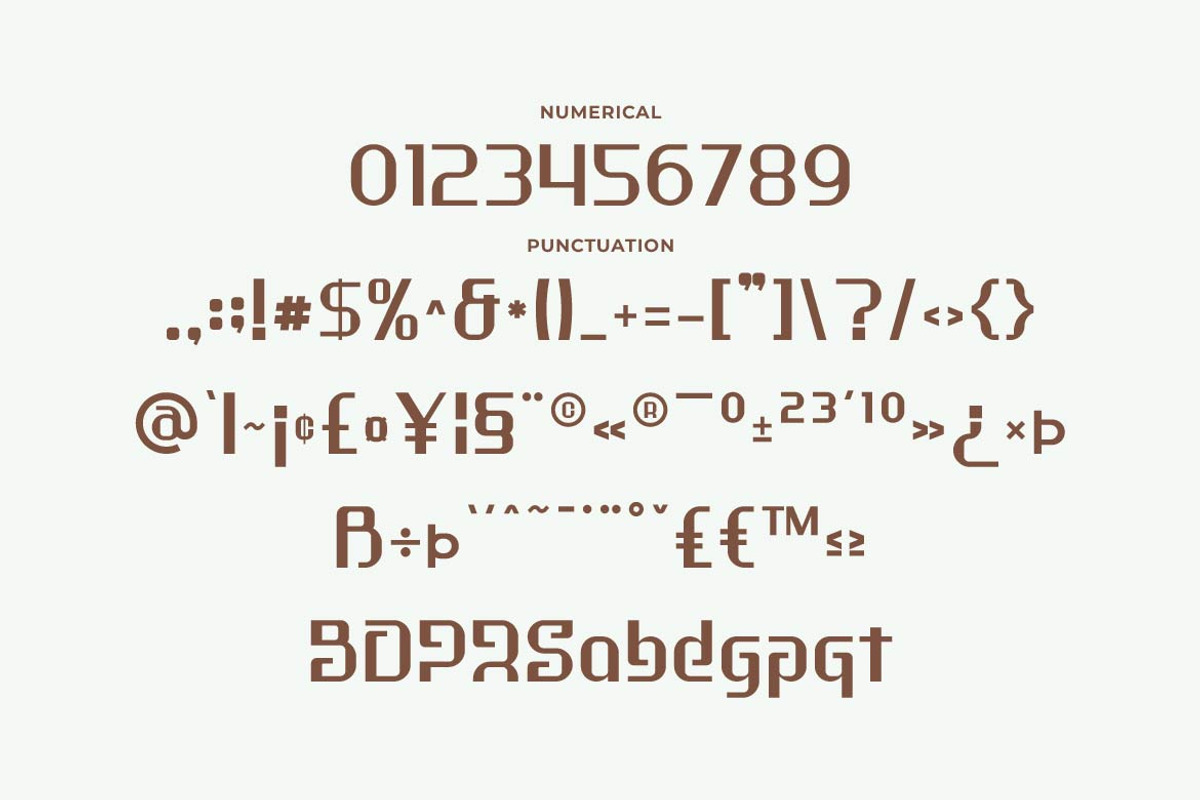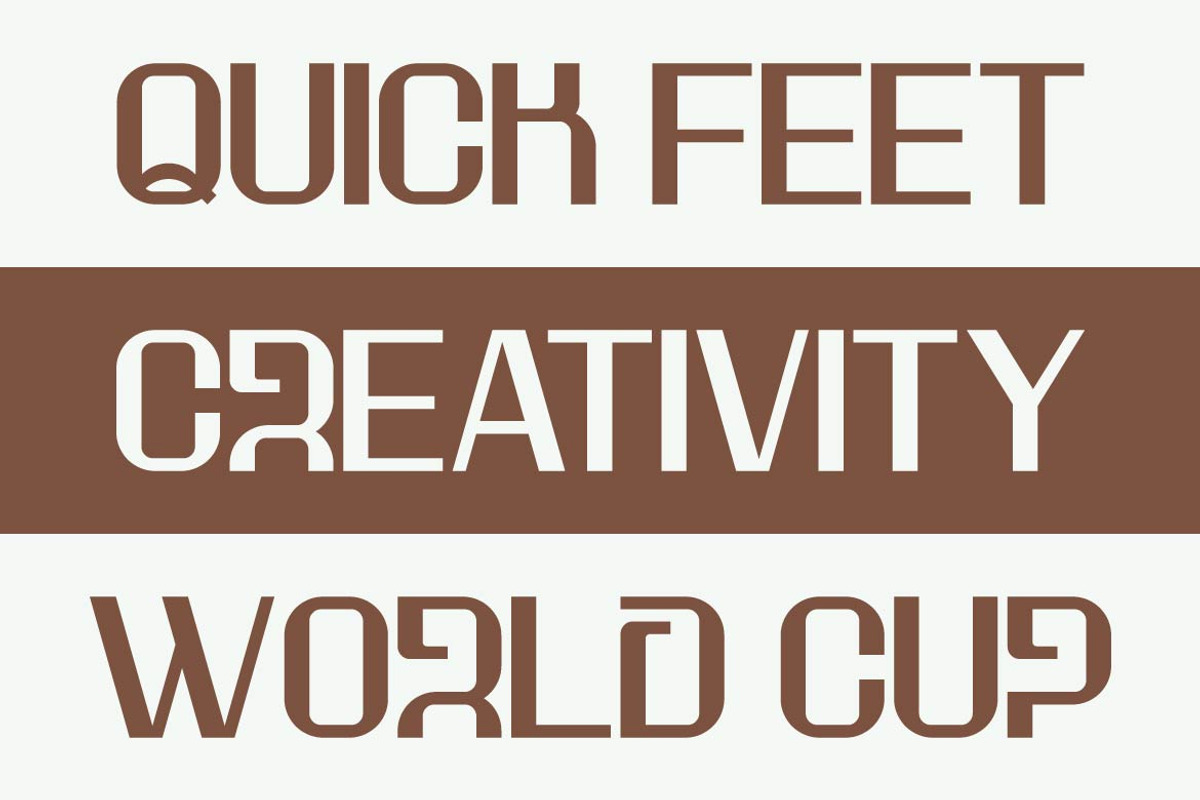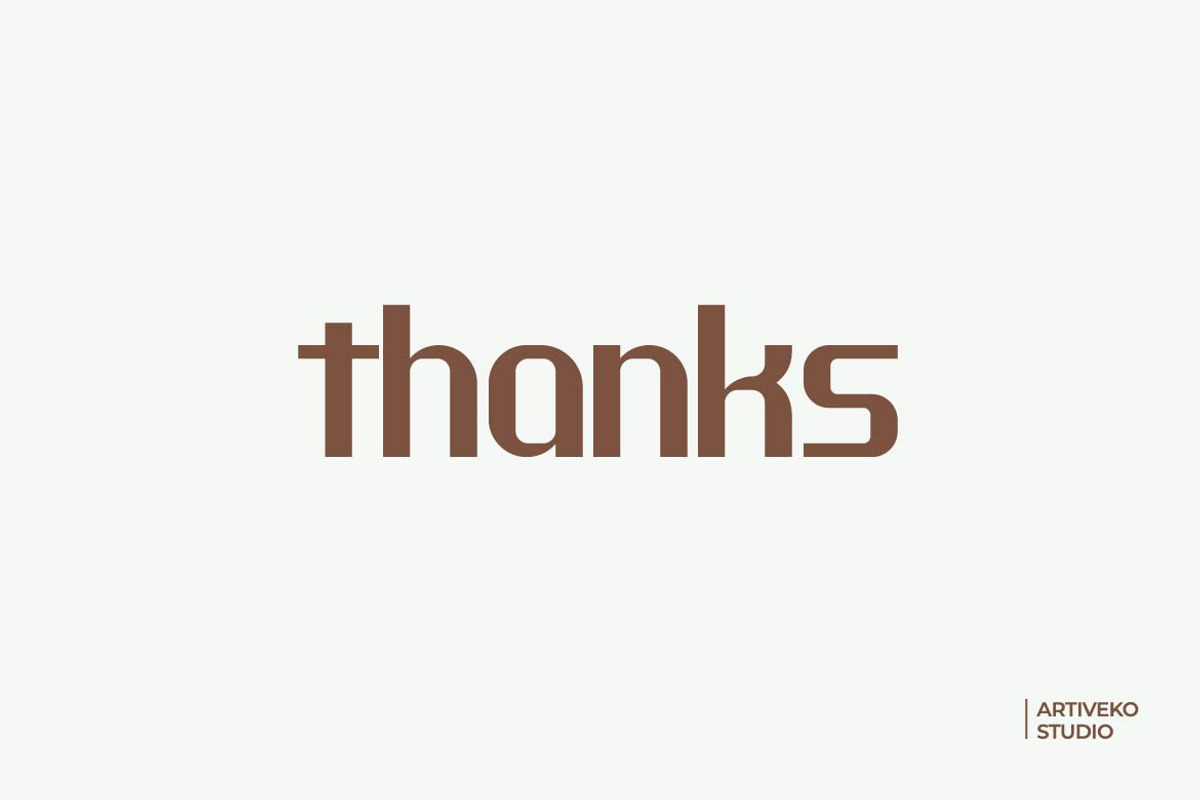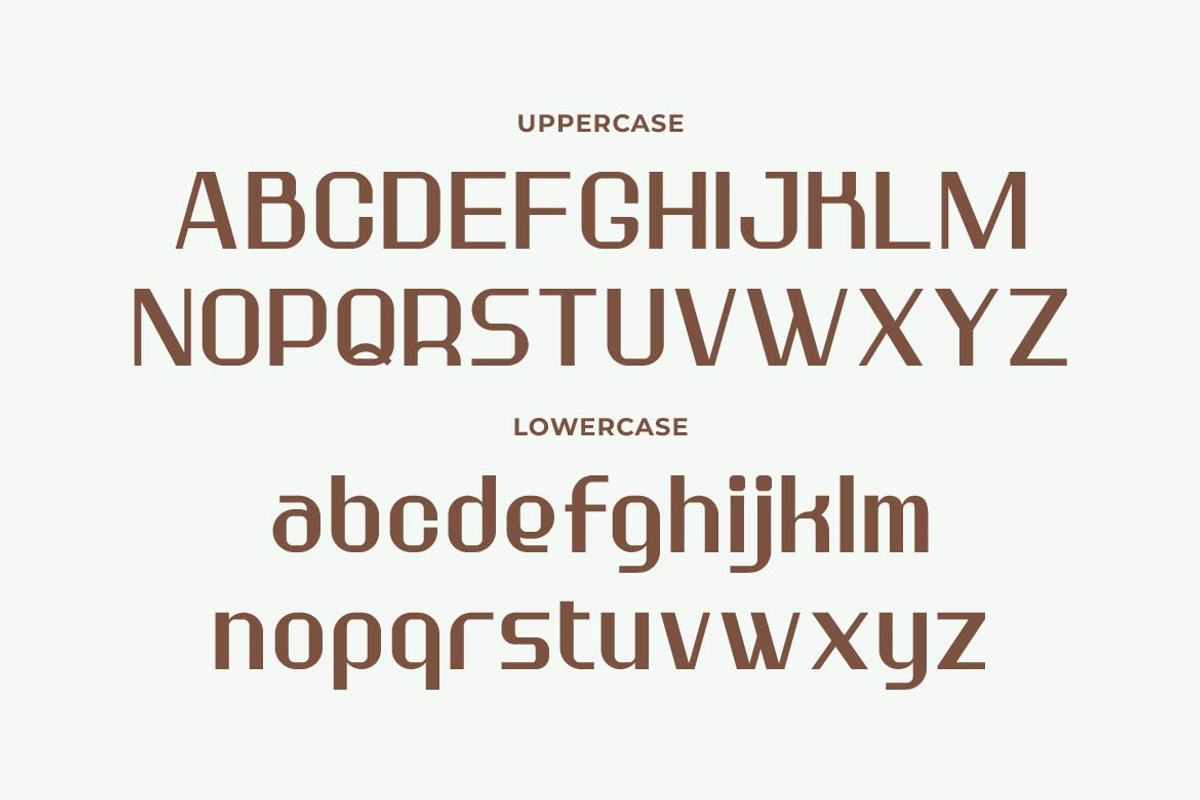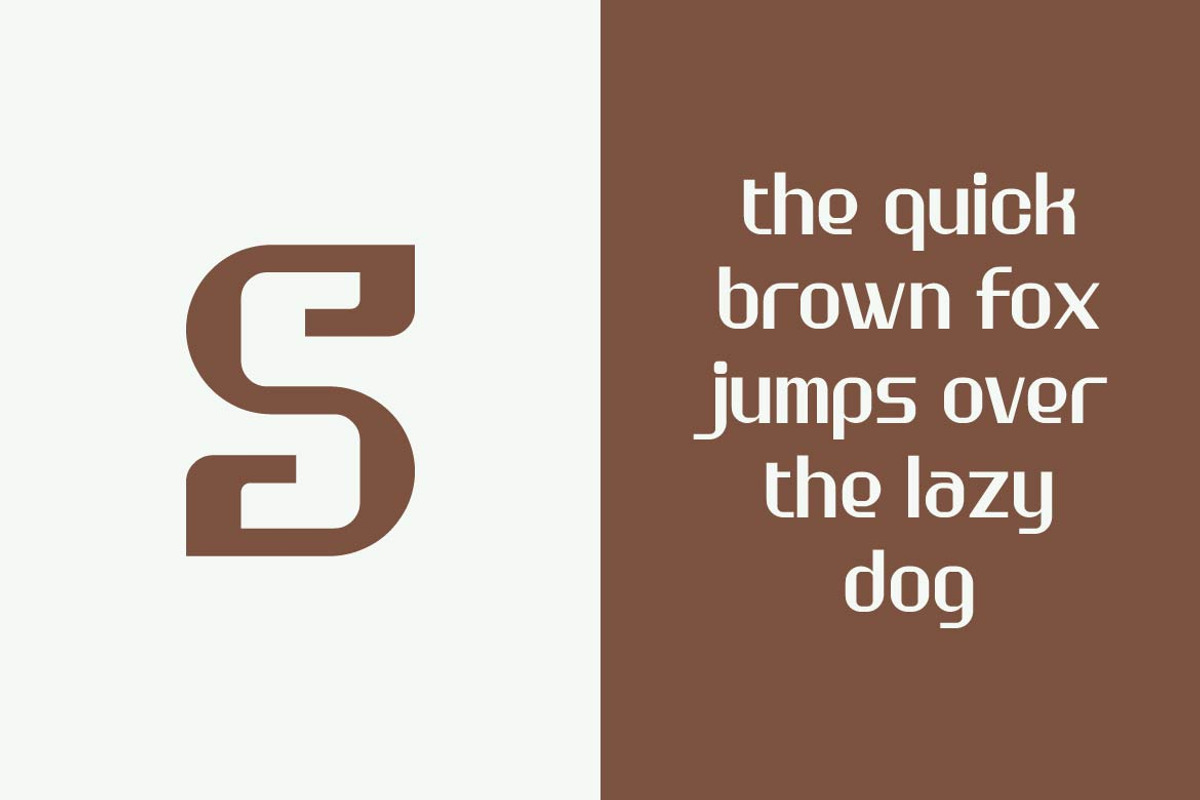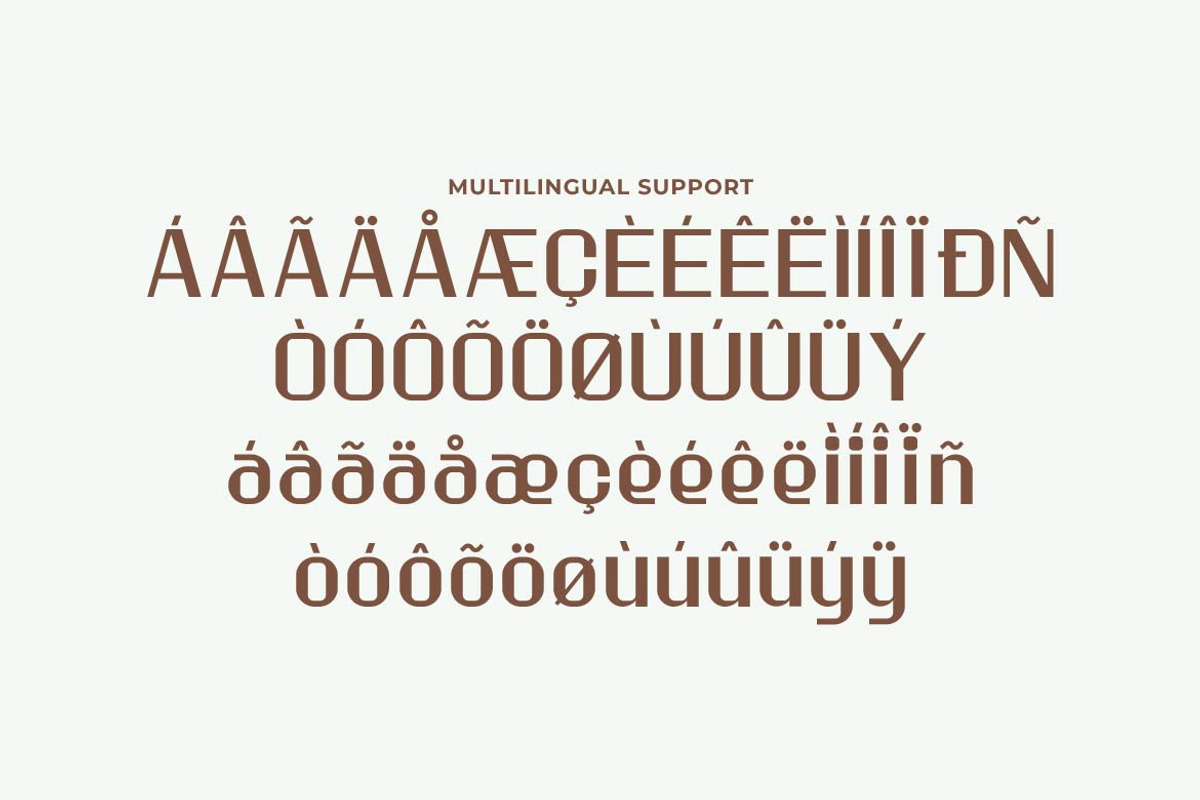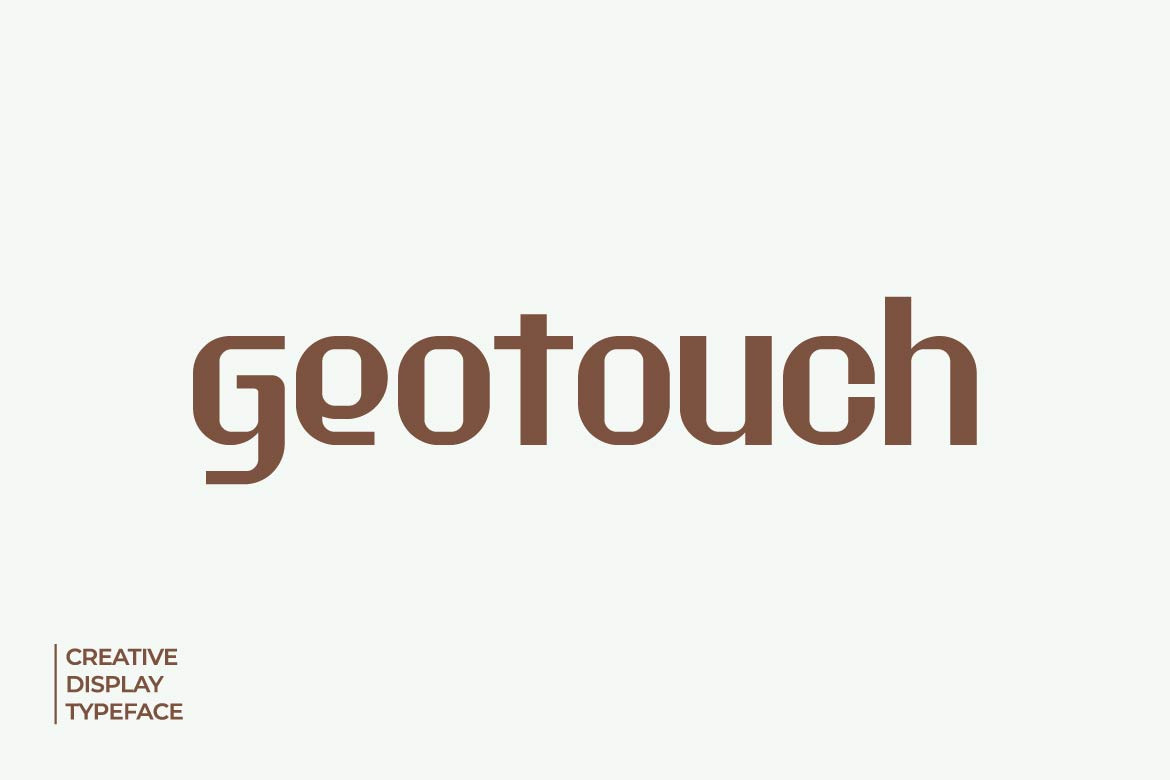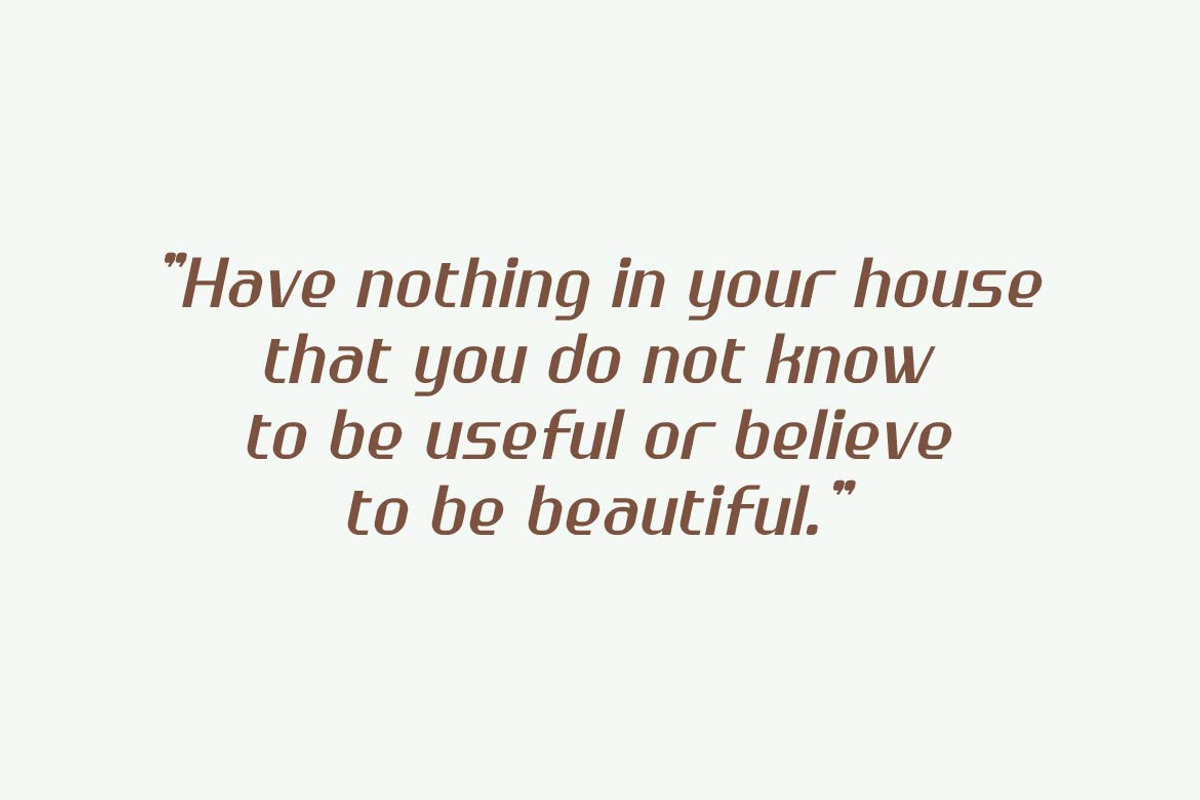
Geotouch – Creative Display Typeface
Geotouch is a creative display typeface designed to bring originality and bold expression into modern typography. Combining clean geometry with distinctive display characteristics, Geotouch delivers a fresh visual style that instantly captures attention while maintaining excellent readability.
Ton of glyphs